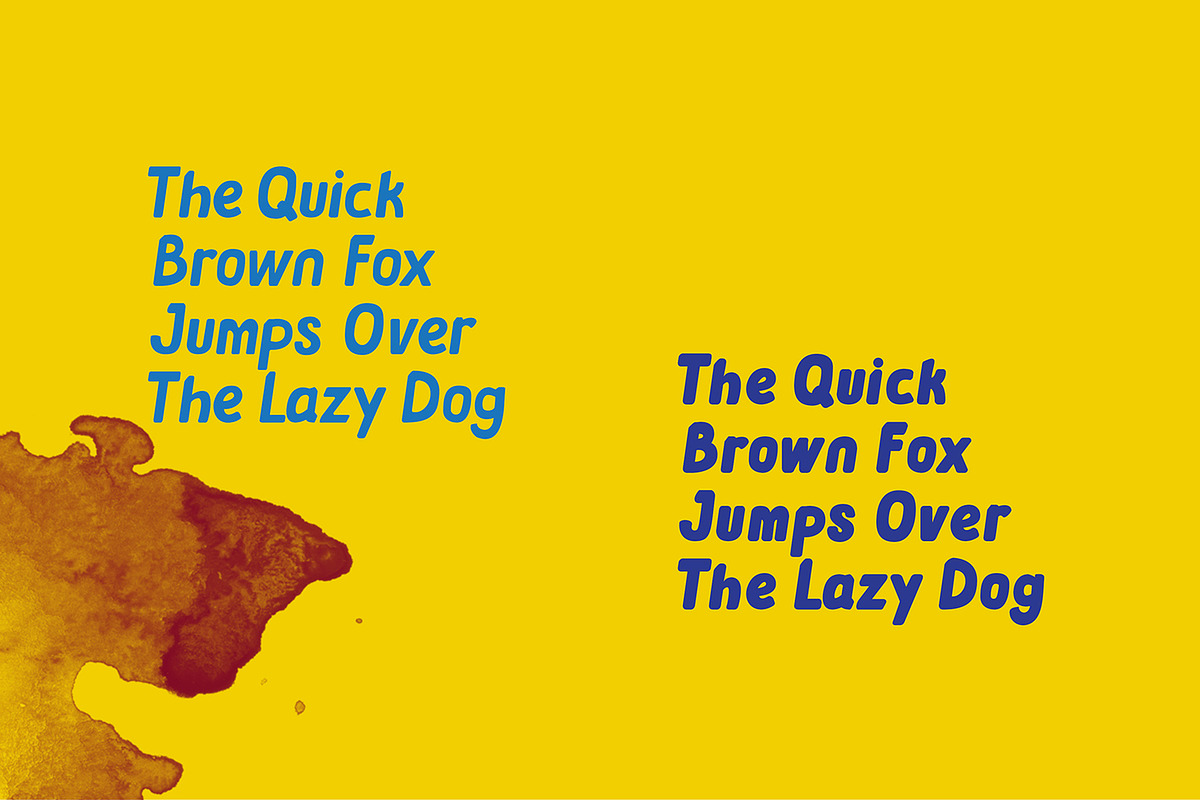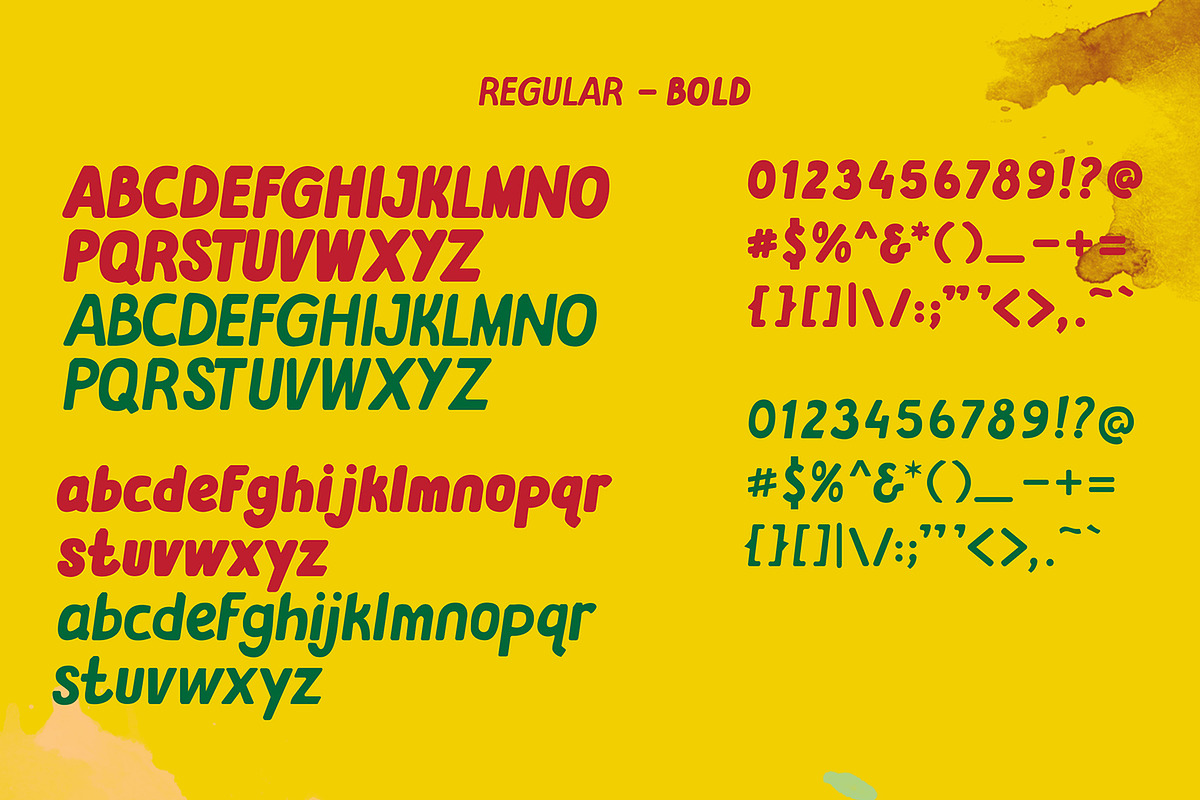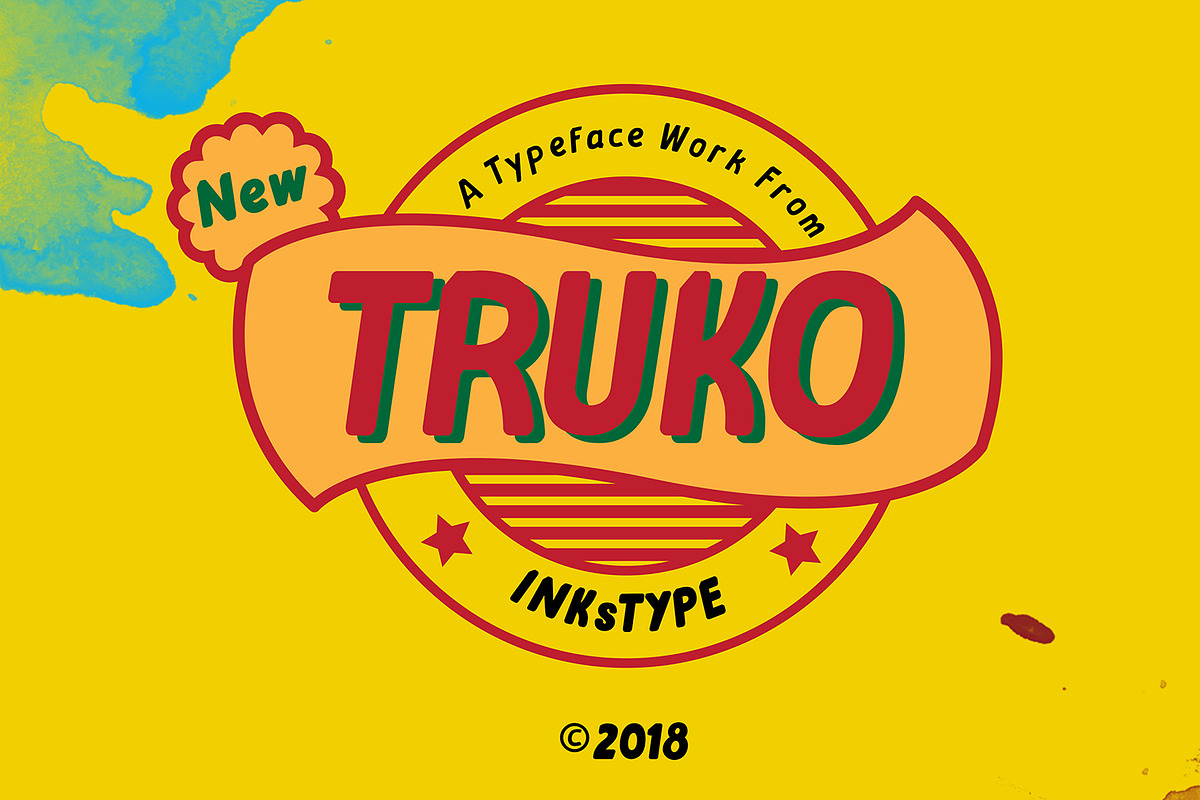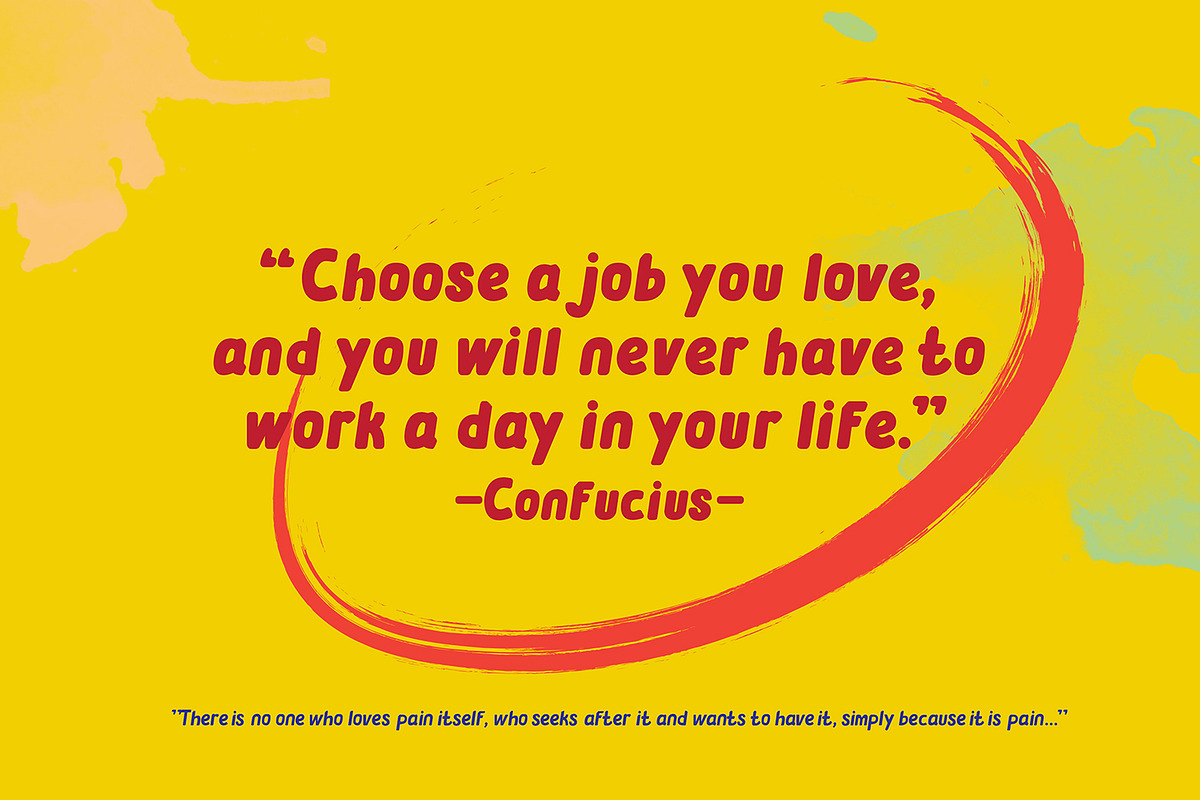
TRUKO-Typeface
A typface design with Regular & Bold Style, available for TTF & OTF. Suit for your Heading, Display text, etc
- Truko Regular
- Truko Bold
Why TRUKO-Typeface is worth a look
TRUKO-Typeface by INKsTYPIA fits naturally into Branding, posters, packaging, typography.